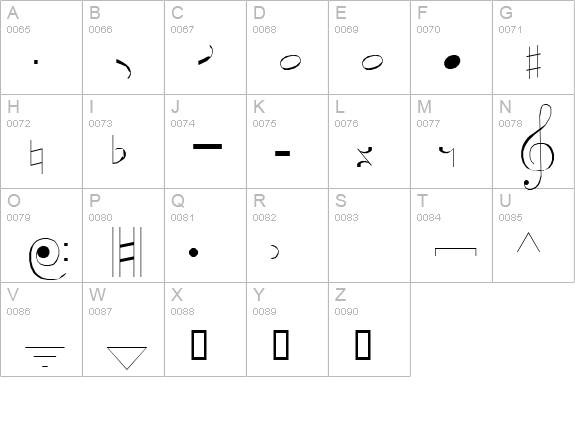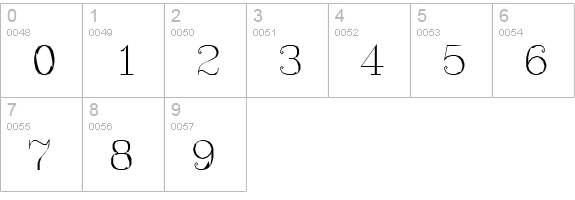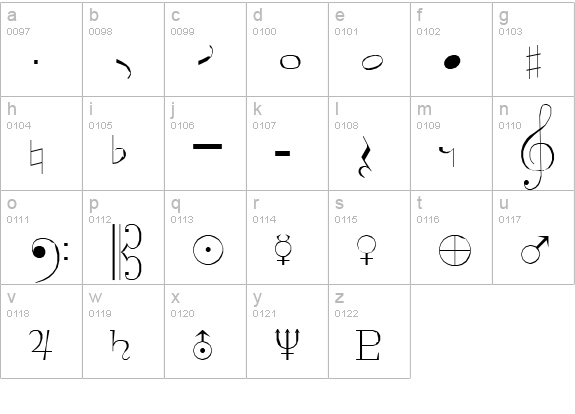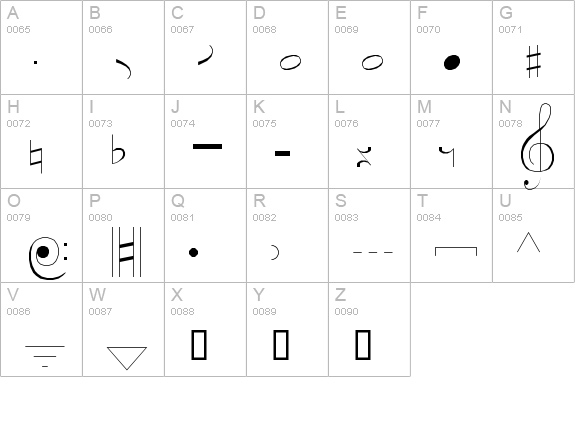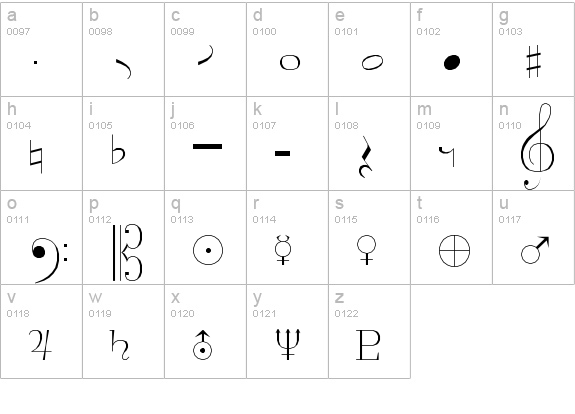
Symusic Font Details
Introducing Symusic font, a versatile and visually appealing typeface perfect for all your design needs. This unique font features elegant and flowing lines that add a touch of sophistication to any project. Whether you're creating a logo, poster, or website, Symusic font is sure to make your text stand out. What's even better is that Symusic font is completely free to use! You can easily download this font from FontsMarket.com and start using it in your designs right away. With its modern and stylish look, Symusic font is a must-have for any designer looking to add a touch of creativity to their work. Don't miss out on the opportunity to enhance your designs with the beautiful Symusic font. Download it for free today and elevate your projects to the next level!